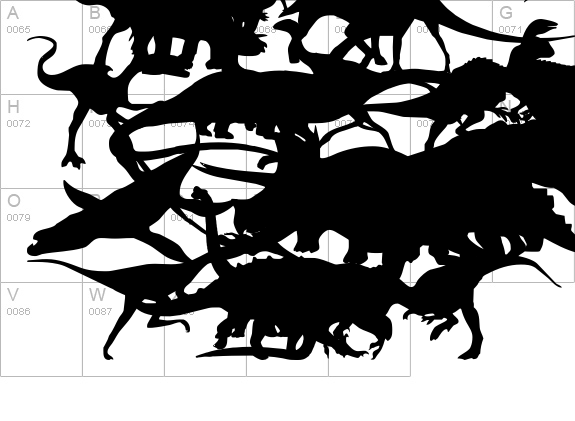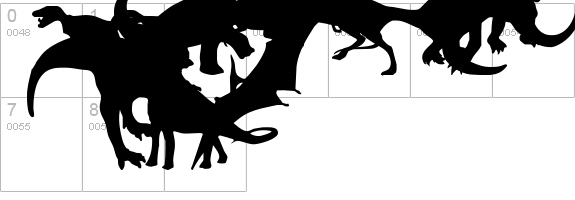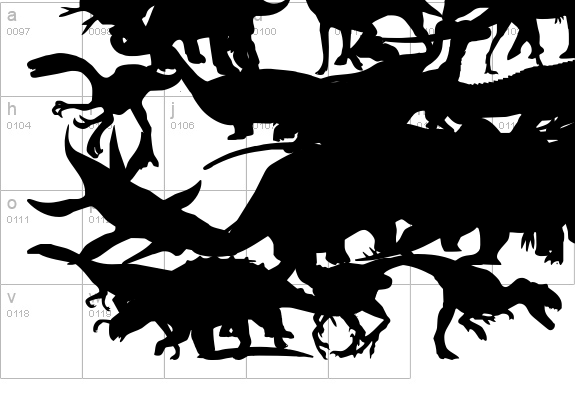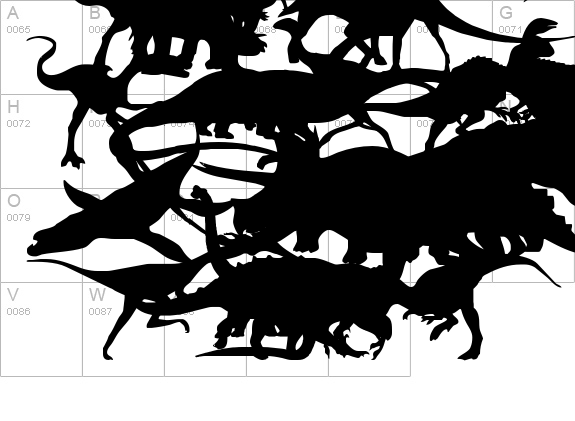
Ding-o-saurs font is a whimsical and playful typeface that brings a touch of fun to any design project. This font features adorable dinosaur-themed dingbats that are perfect for adding a pop of personality to your work. Whether you're creating a children's book, party invitation, or social media graphic, Ding-o-saurs font is sure to delight and captivate your audience. The best part? Ding-o-saurs font is completely free to download at FontsMarket.com. With just a few clicks, you can add this charming font to your collection and start using it in your projects right away. Don't miss out on this fantastic opportunity to bring some dino-inspired charm to your designs - download Ding-o-saurs font today!